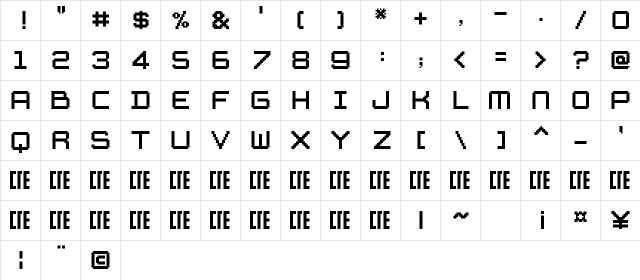
YELLOWCRE Medium
Design Context for YELLOWCRE Typeface
YELLOWCRE takes a measured approach to typography — its balanced proportions and neutral character make it a reliable workhorse for both digital and print work.